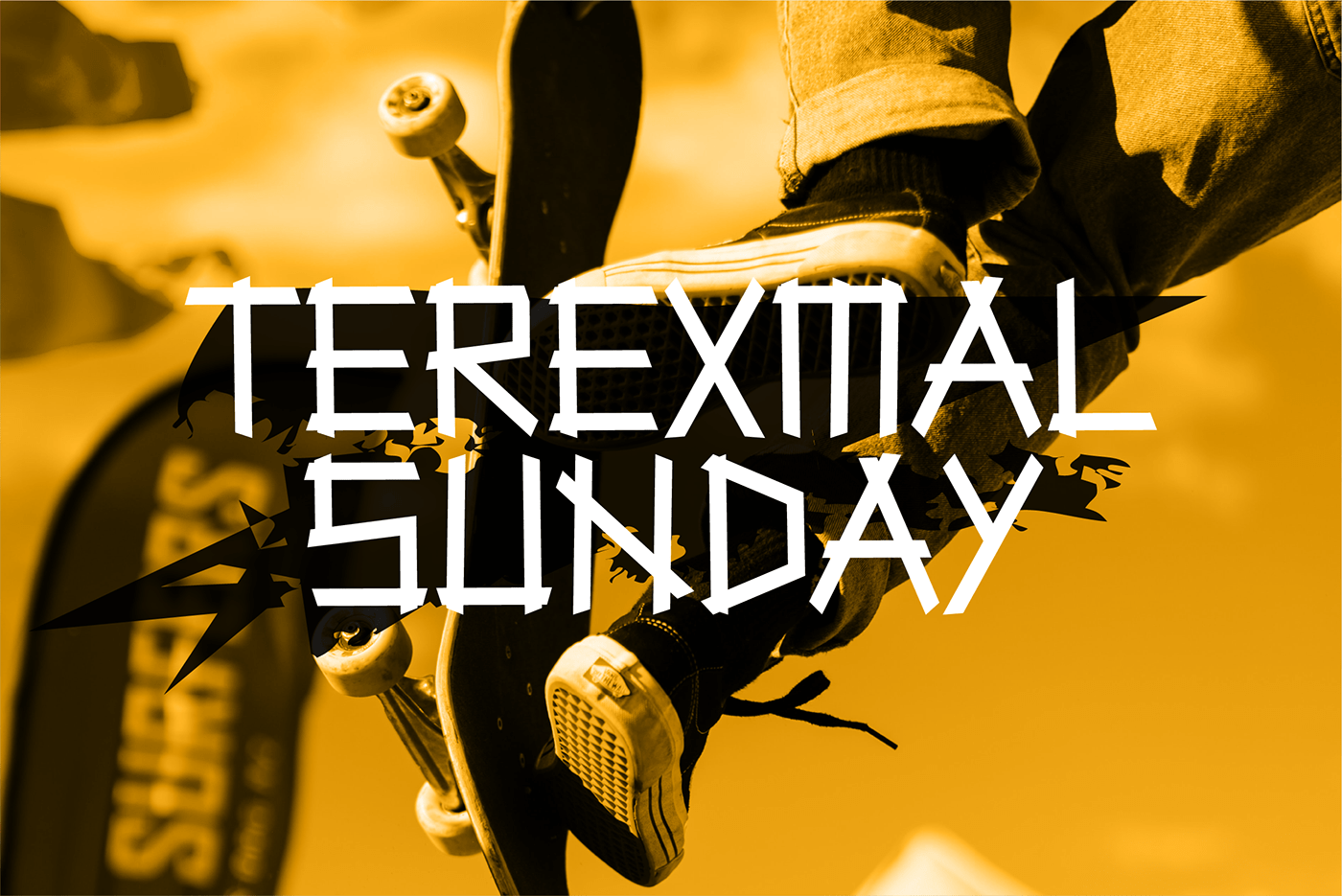
Terexmal Sunday - Free Font
Terexmal sunday is a decorative typeface with an urban and modern style with unique and wild characteristics but still looks neat, suitable to make your design look more unique, modern and attractive. This typeface is also suitable for youth sports design...